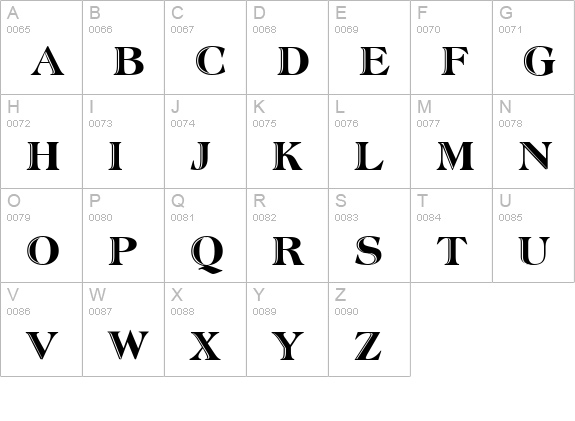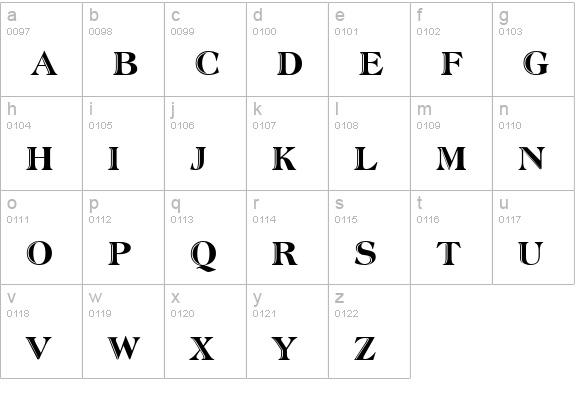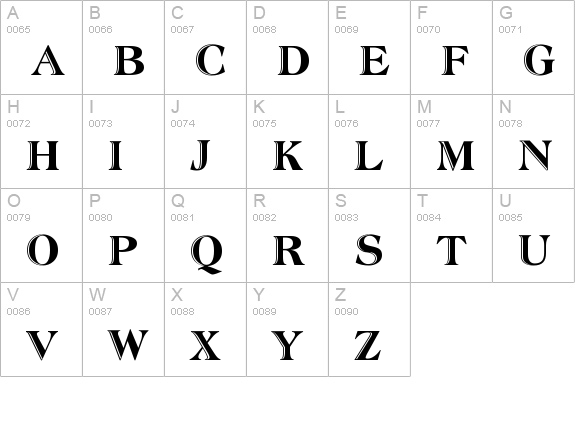
Atlantic Inline-Normal Font Details
Atlantic Inline-Normal is the standard, neutral variant in the Atlantic typeface family \xE2\x80\x94 well suited to general body text, paragraphs, and standard typographic work.
Atlantic Inline-Normal is a stylish and elegant font that exudes sophistication and professionalism. Its clean lines and sleek design make it perfect for a wide range of design projects, from marketing materials to invitations. The classic inline style adds a touch of modern flair while maintaining a timeless appeal. What sets Atlantic Inline-Normal apart is that it is available for free download at FontsMarket.com. This means that you can easily access this versatile font and use it in your projects without any cost. Whether you're a graphic designer, a business owner, or a student working on a presentation, Atlantic Inline-Normal is a fantastic choice that combines style and accessibility. Download it today and elevate your designs with this exceptional font.